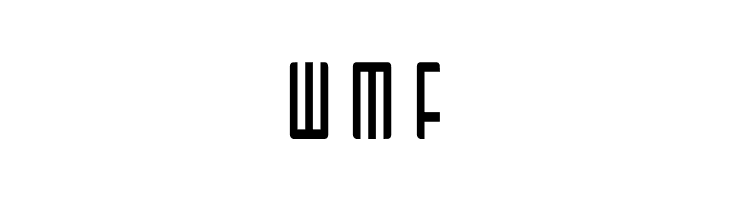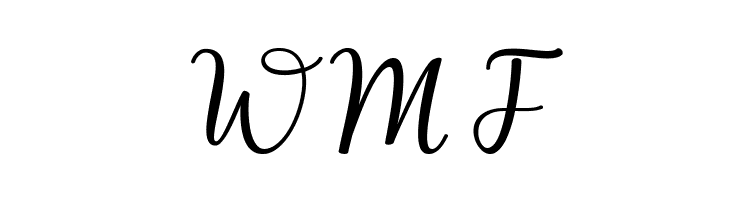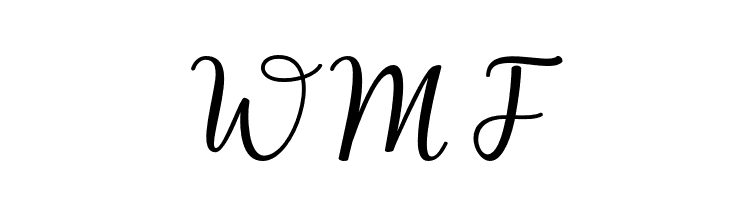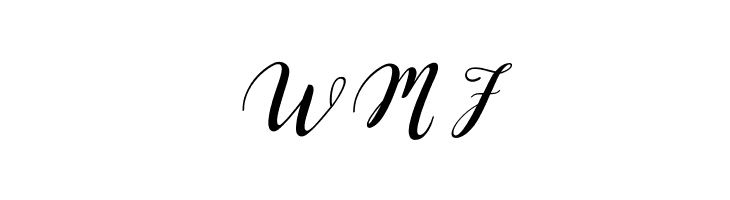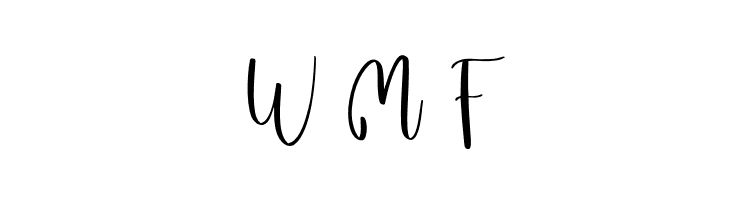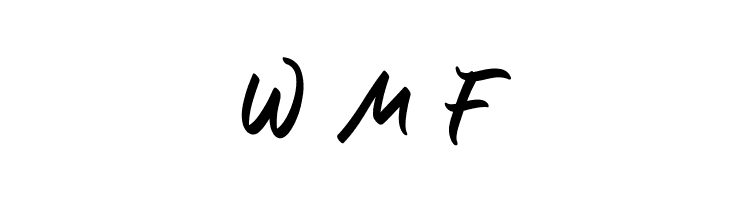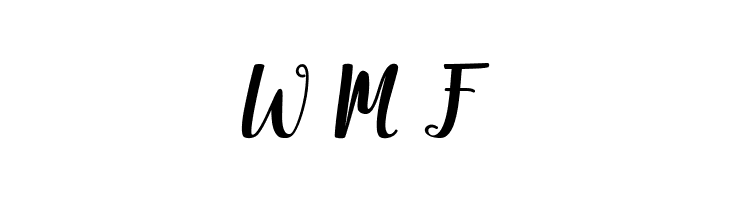
A lively, cursive font with a handwritten, elegant style.
An elegant script font with flowing, cursive letterforms and sophisticated swashes.
A lively and expressive script font with fluid, dynamic strokes.
A playful and elegant script font with flowing, cursive letterforms.
A bold, geometric font with a modern and versatile design.
A lively, cursive font with fluid, connected strokes and a handwritten feel.
A graceful and elegant script font with flowing, interconnected letters.
A sophisticated script font with elegant, flowing lines and dynamic contrast.
A modern, tall, and narrow font with minimal contrast and sleek design.
A tall, narrow, and modern font with thin, uniform strokes.